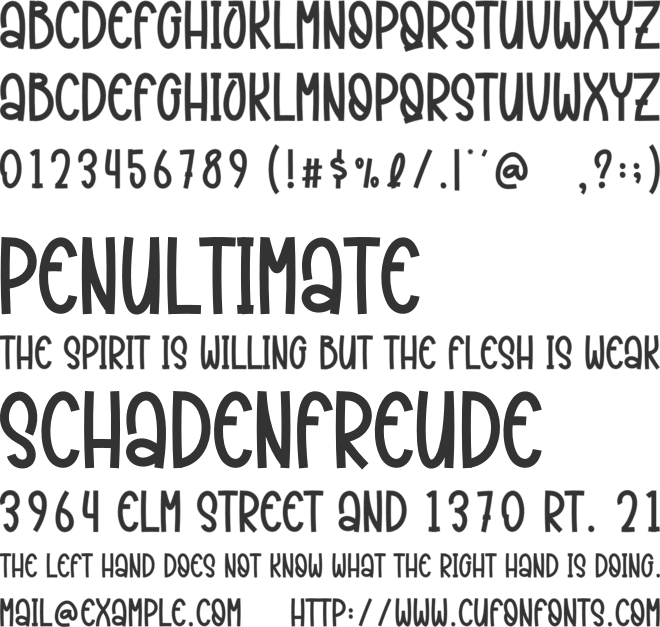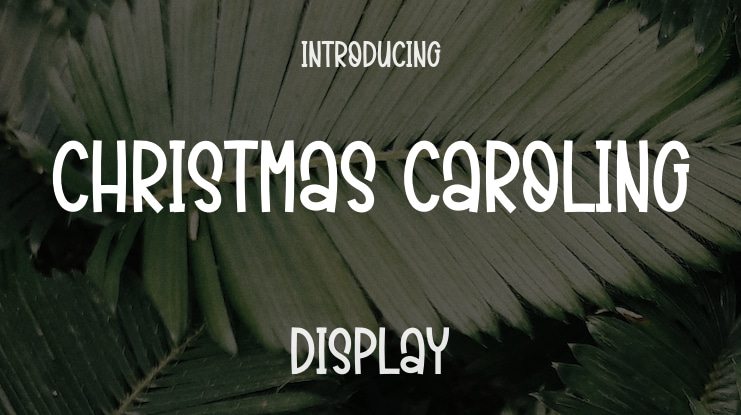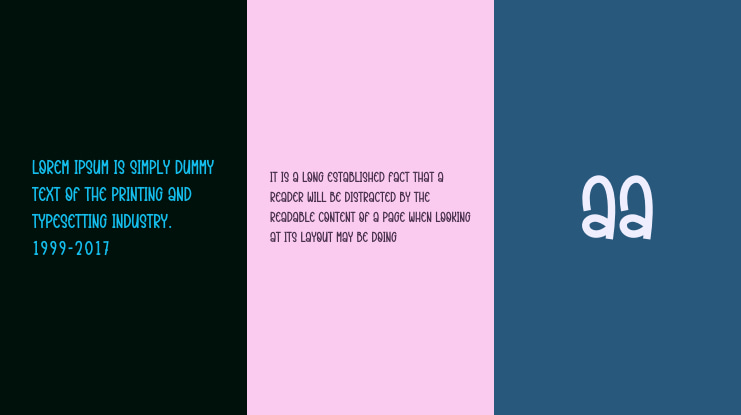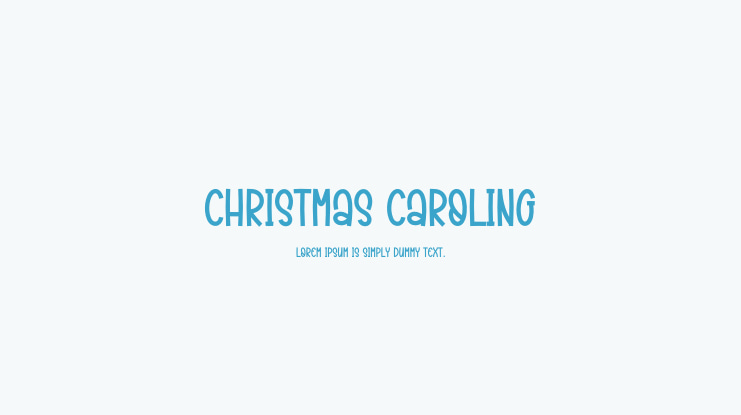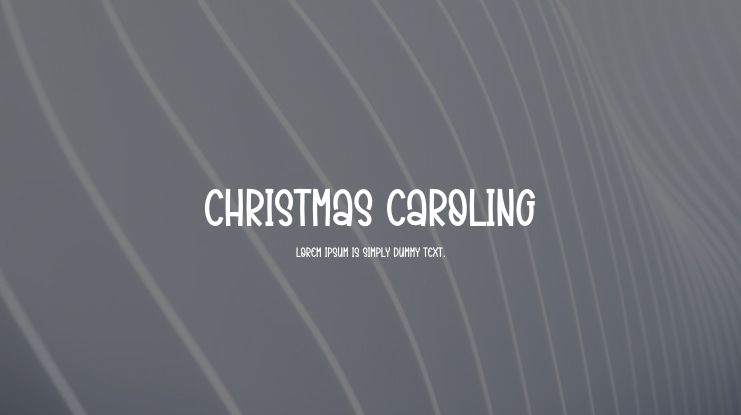
Christmas Caroling Font
The latest style of fonts is perfect for a variety of uses: wall displays, wedding invitations, social media post logos, advertisements, product packaging, product designs, labels, photography, watermarks, stationery, and any project needing a touch of elegant handwriting.